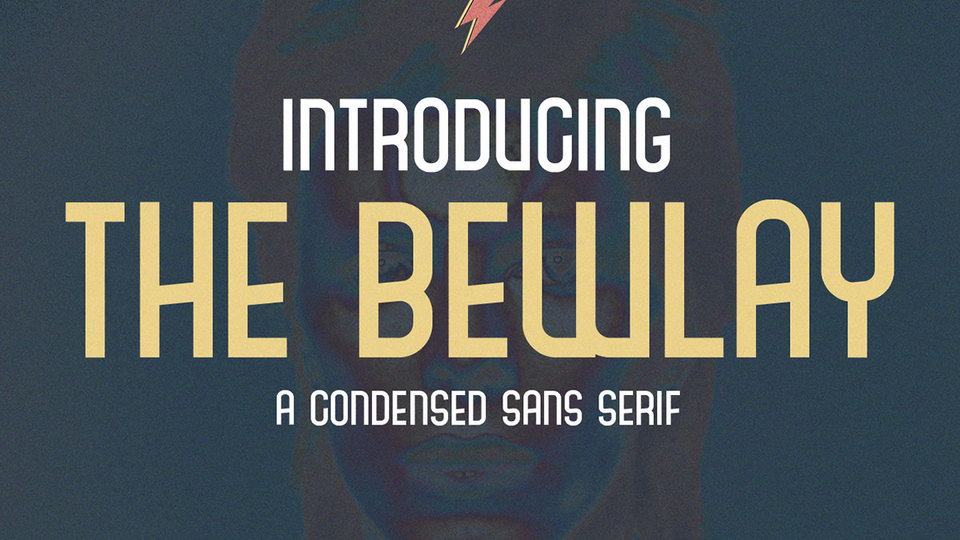
The Bewlay Typeface
Hi designer. This is an ultra condensed sans serif display typeface with geometric forms, you can make the perfect creative logo or poster in just a few seconds by using this font. Introducing The Bewlay Free Font. Suitable for t-shirts, prints, magazine or book cover, business cards, material branding, poster quotes, Clothing, wedding invitations, blog posts, social media, digital letters, and many more interesting!